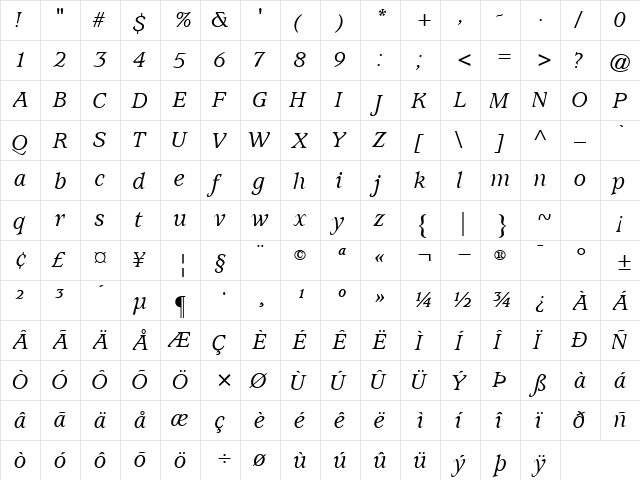
ExpositionMediumSSK Italic
Design Context for ExpositionMediumSSK Typeface
ExpositionMediumSSK is a composed and adaptable typeface that performs quietly and consistently across a wide range of design contexts. Its italic angle brings a sense of urgency and motion to the letterforms.
Pro Tip: Use ExpositionMediumSSK for emphasis, pull quotes, and subheadings where its slanted energy can add rhythm to the layout.